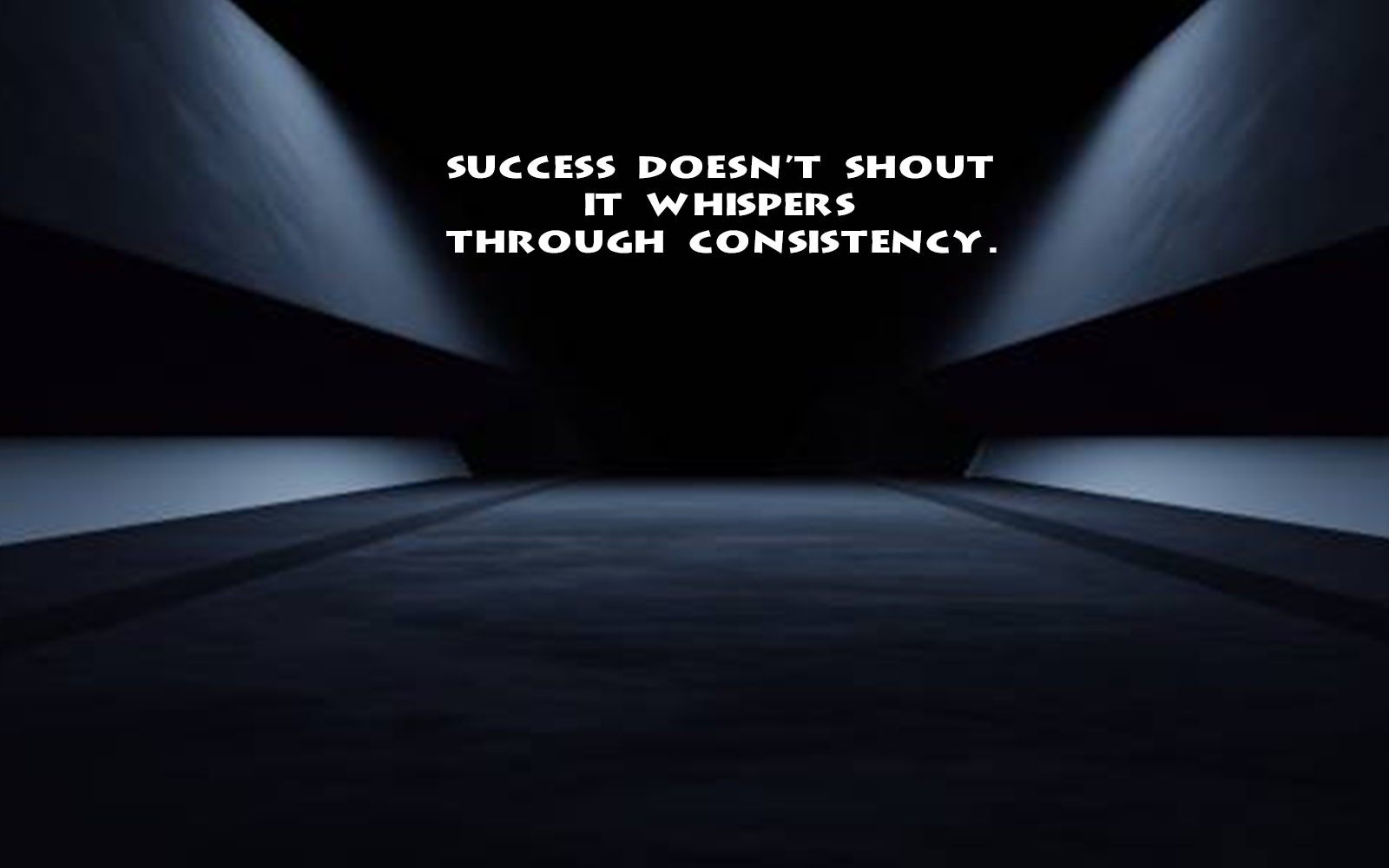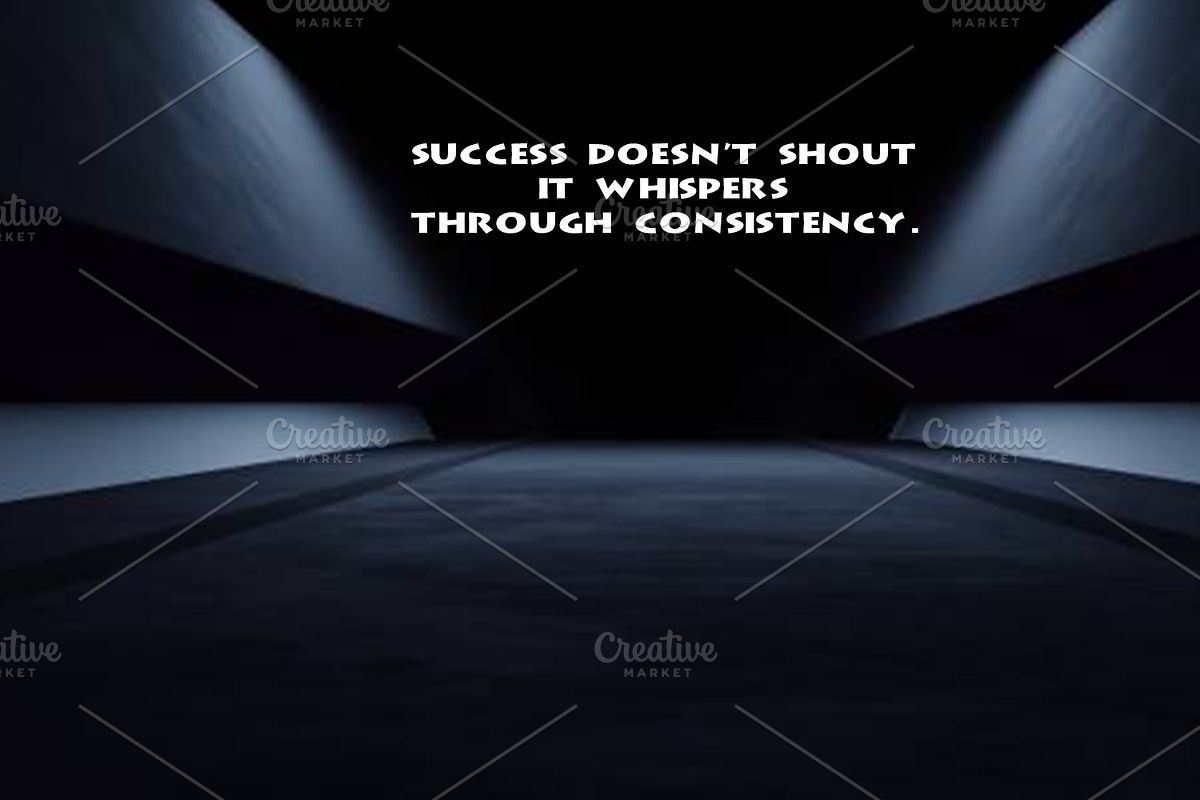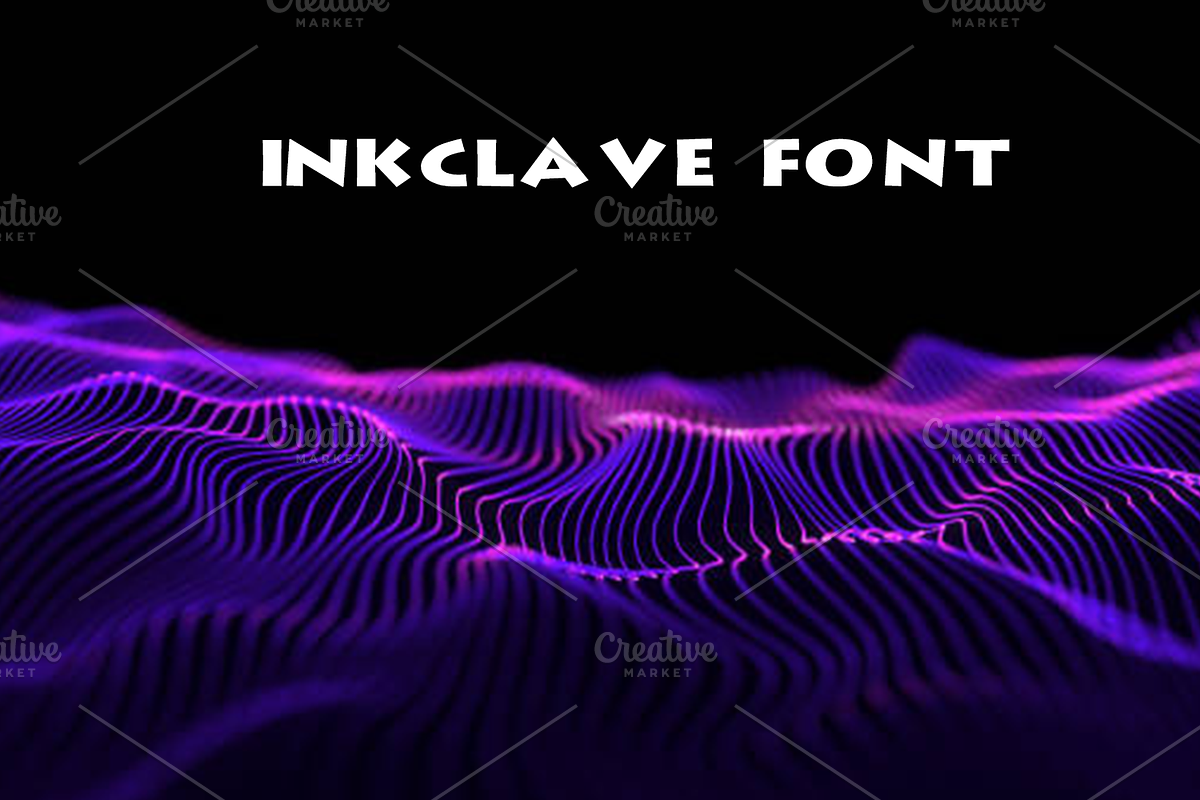
Introducing Inkclave – where timeless charm meets refined detail. Crafted to echo the golden era of print, this font brings elegance and nostalgia to your words. Whether you’re designing a literary cover, a heritage brand, or an editorial masterpiece— Inkclave gives your message the voice of a classic, with the soul of a storyteller.